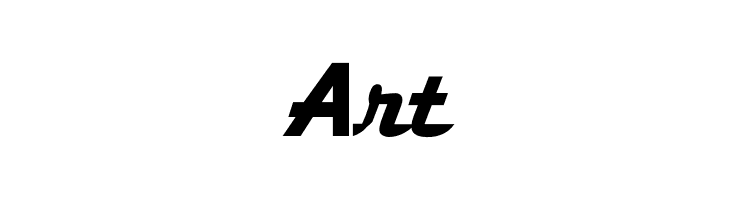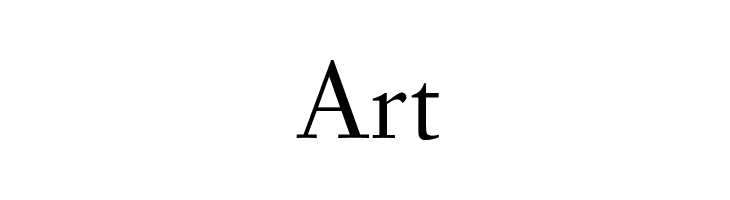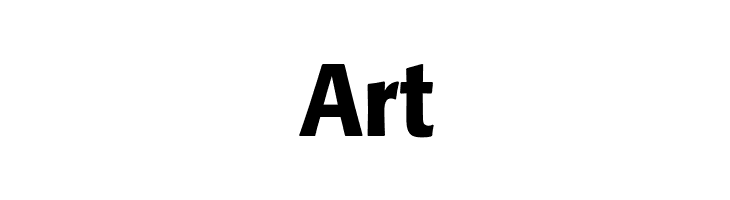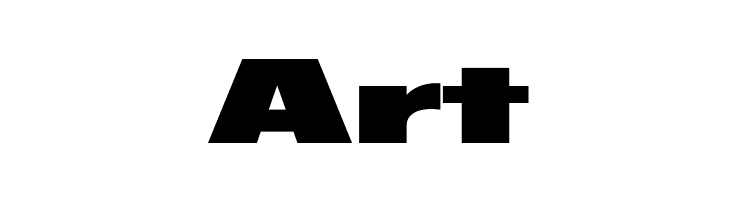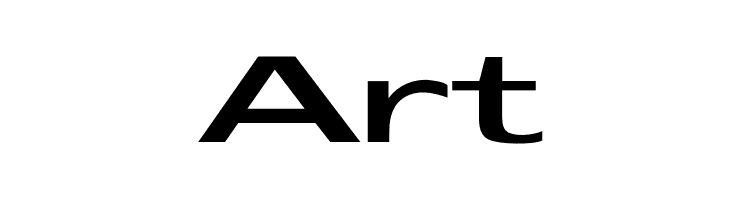
A classic serif font with high contrast and elegant serifs.
A bold, modern font with strong, impactful characters ideal for headlines.
A bold, modern sans-serif font with clean lines and geometric structure.
A bold, italic script font with a dynamic and modern style.
An elegant script font with intricate, flowing letterforms and decorative flourishes.
An elegant and modern font with tall, slender characters and artistic strokes.
A bold, clean font with strong lines and excellent legibility.
A modern, light sans-serif font with clean lines and balanced spacing.
A bold, rounded sans-serif font with smooth curves and uniform stroke width.
A classic serif font with elegant strokes and balanced proportions.